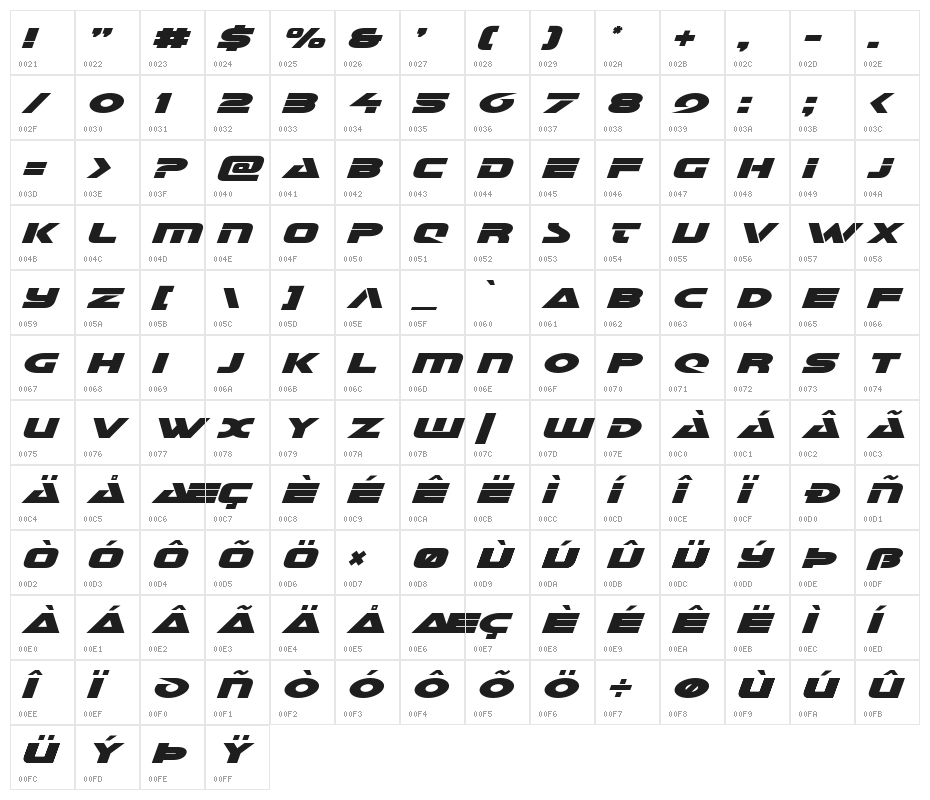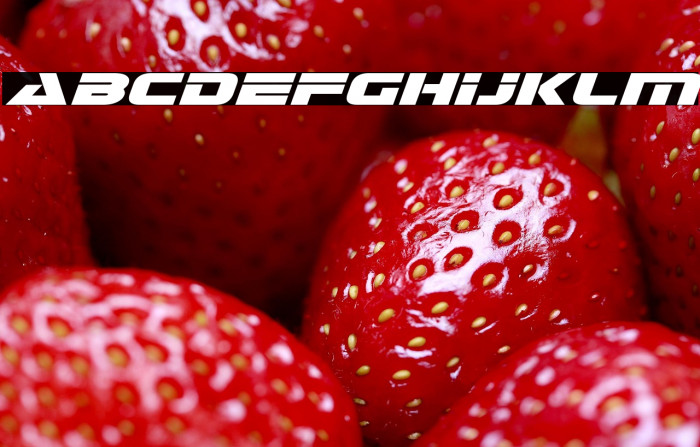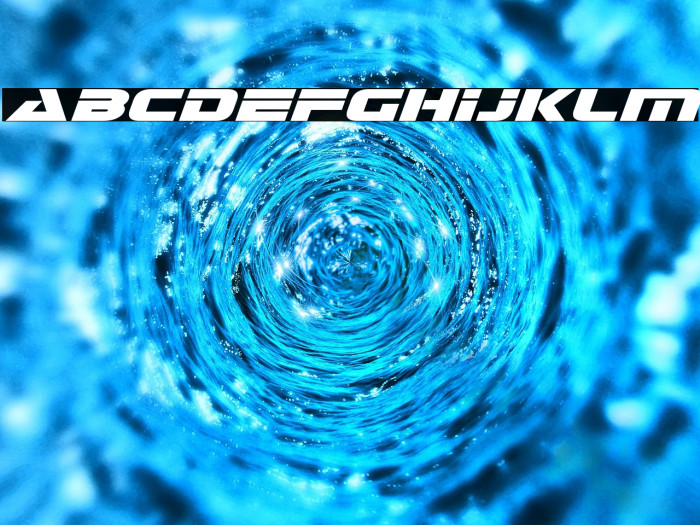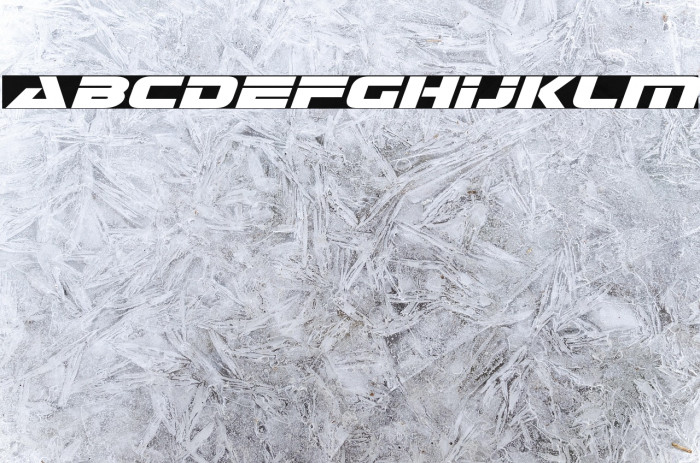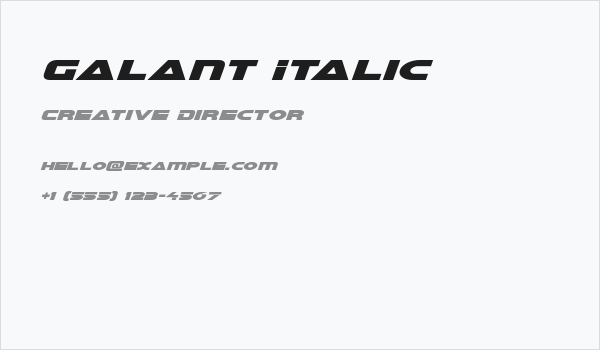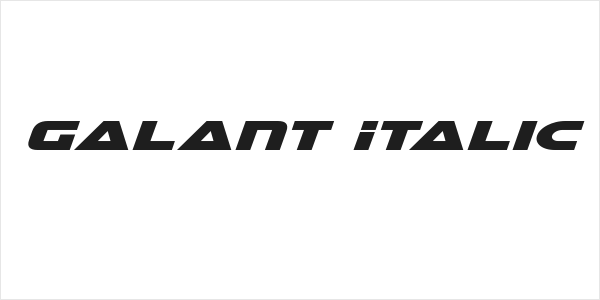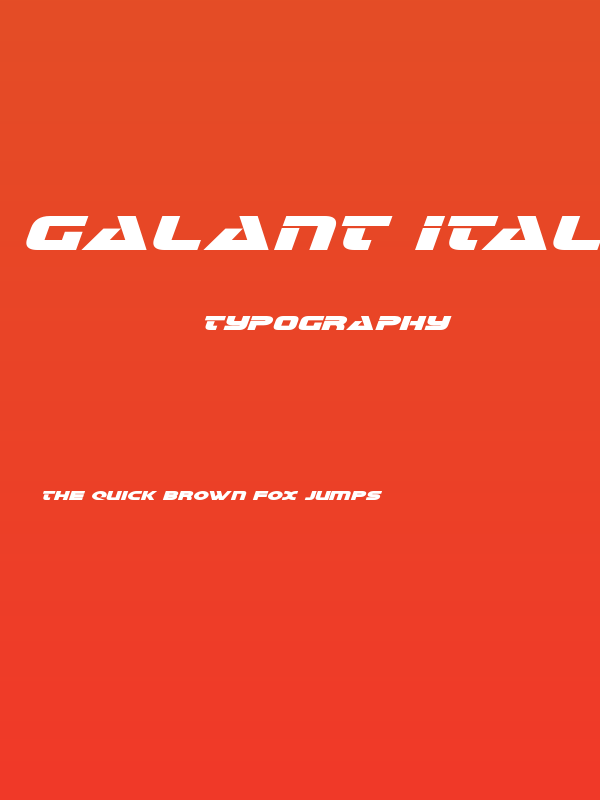
Galant Italic Font
Galant Italic Description
This font features a bold and dynamic style with a strong italic slant, giving it a sense of motion and energy. The characters are wide and have a futuristic appearance, with sharp angles and clean lines. The uppercase letters are particularly striking, with a geometric design that emphasizes their boldness. The lowercase letters maintain the same dynamic style, ensuring consistency throughout. Numbers and special characters are designed to match the overall aesthetic, making this font versatile for various applications.
WidthExpanded
Use CaseHeadlines, Logos, Branding
Proposed ProjectsIdeal for sports branding, automotive designs, tech-related projects, and dynamic advertising campaigns.